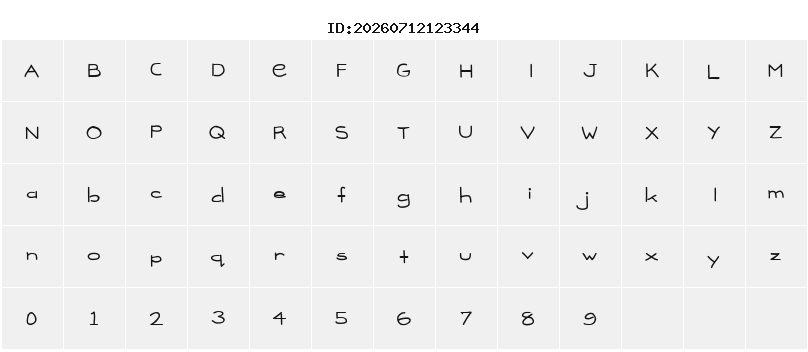
• Font Name: Madison
• Full Font Name: Madison
• PostScript Name: Madison
• Character Count: 94
• Designer: [typologic]
• Manufacturer: [typologic]
About Madison.ttf
Madison.ttf is a modern, elegant sans-serif font designed for ultimate readability and visual harmony. Perfect for branding, headlines, web design, and print materials.